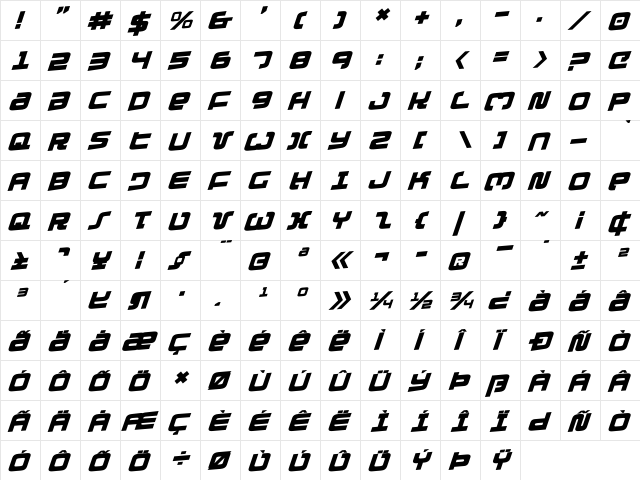
Exedore Rotalic Regular
Design Context for Exedore Rotalic Typeface
Exedore Rotalic is a composed and adaptable typeface that performs quietly and consistently across a wide range of design contexts.